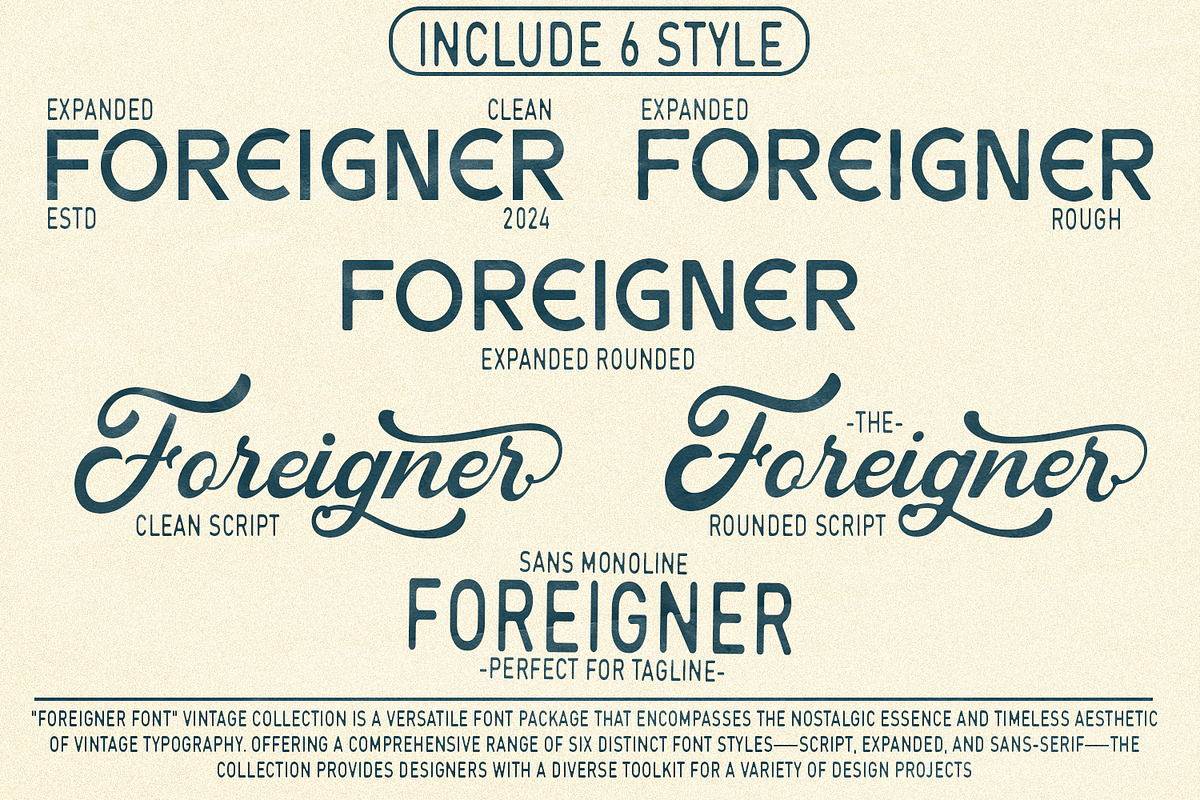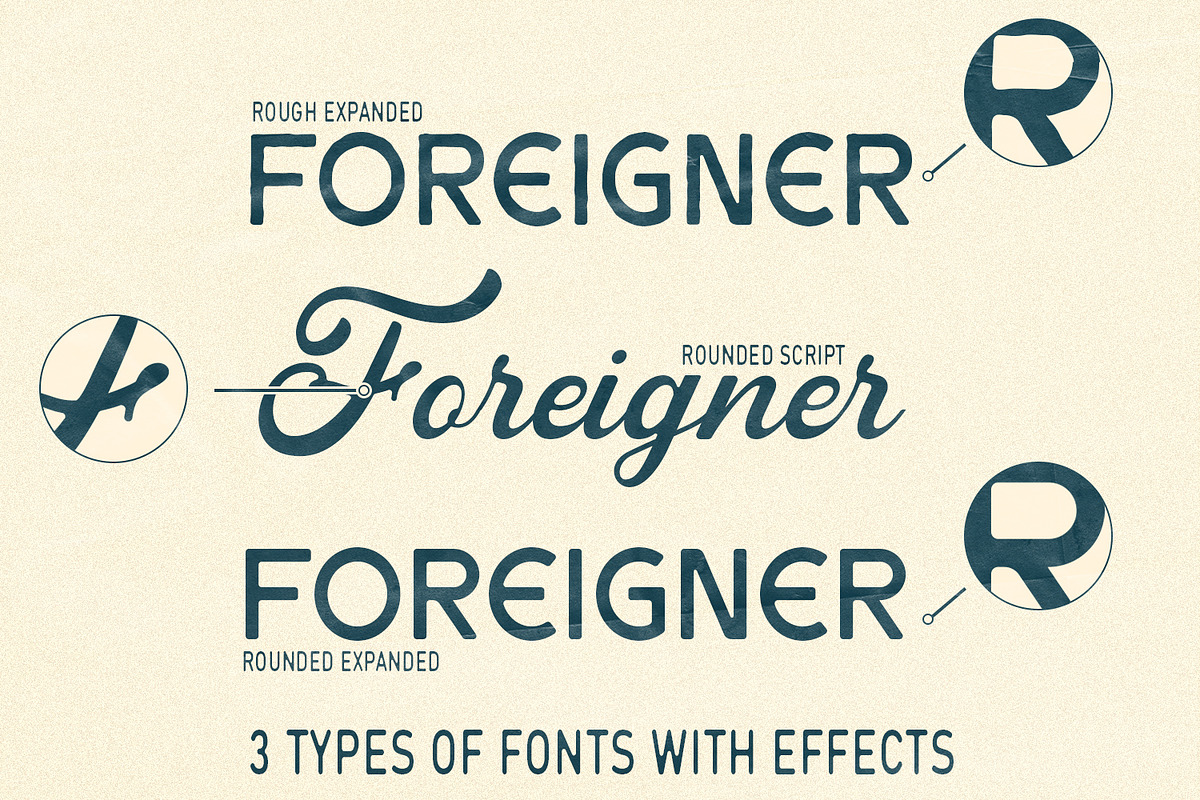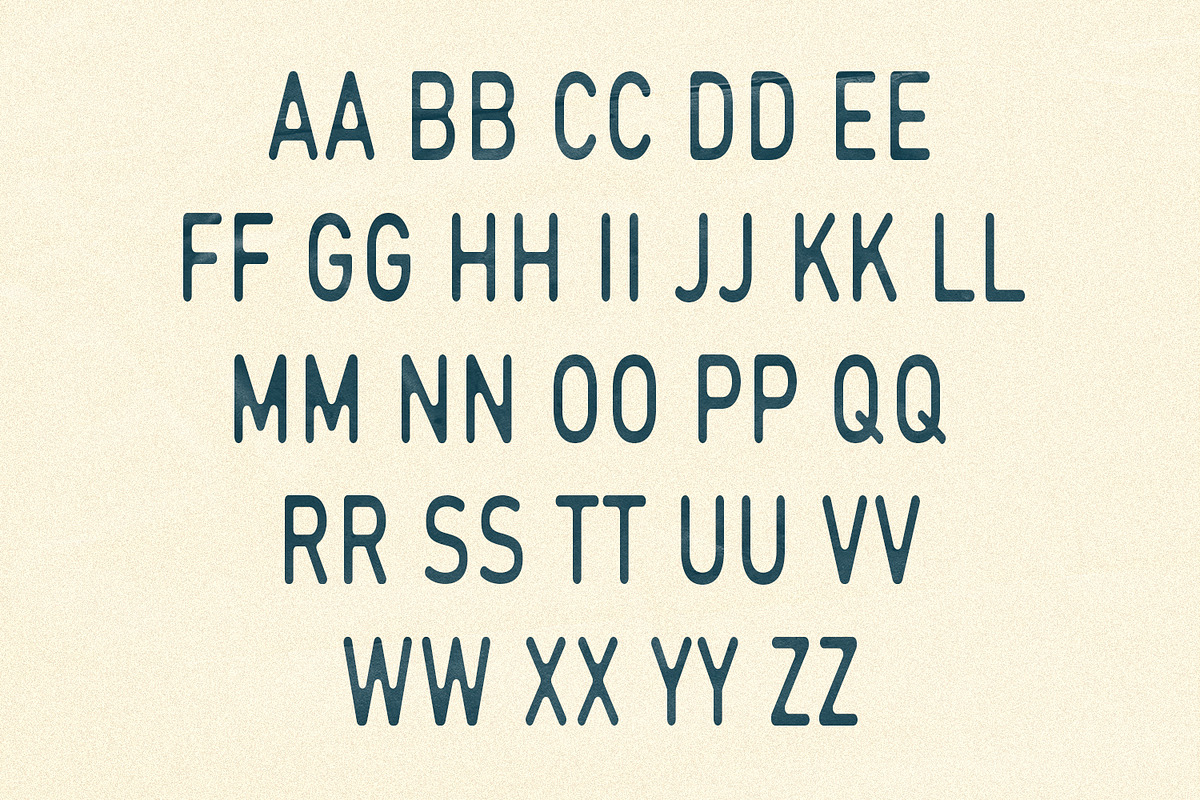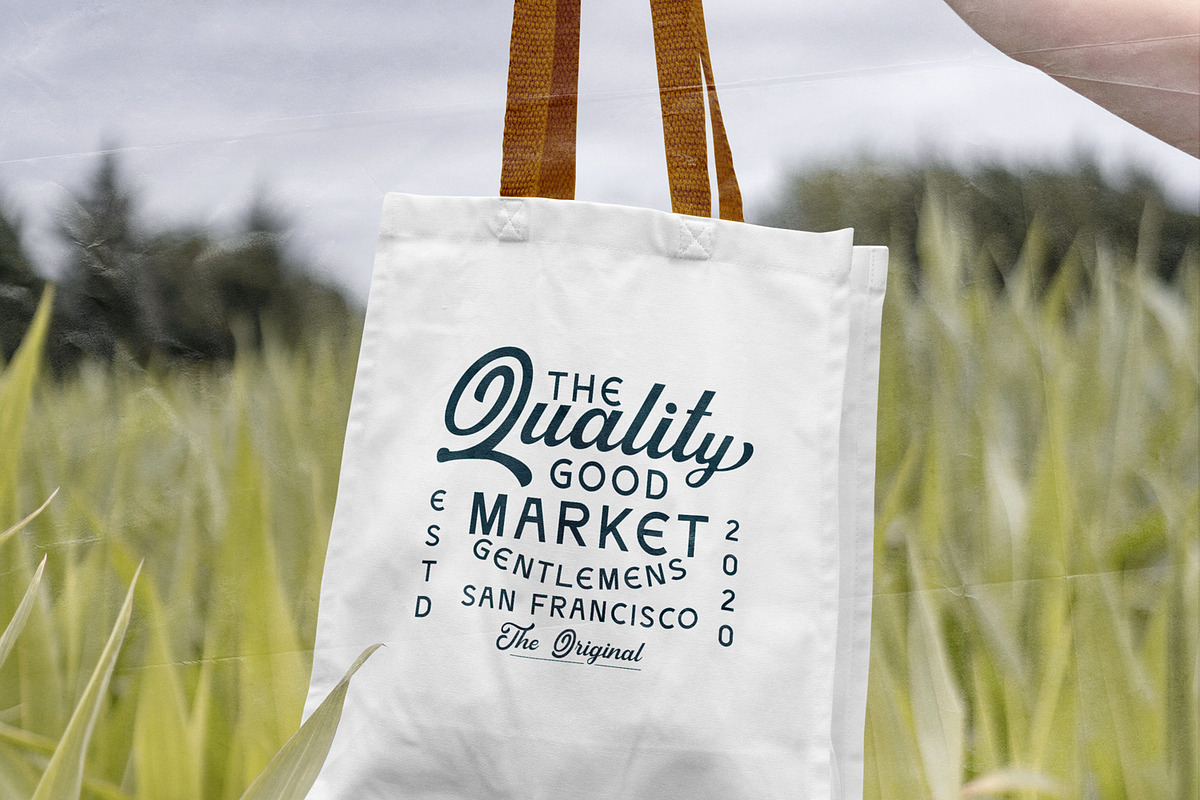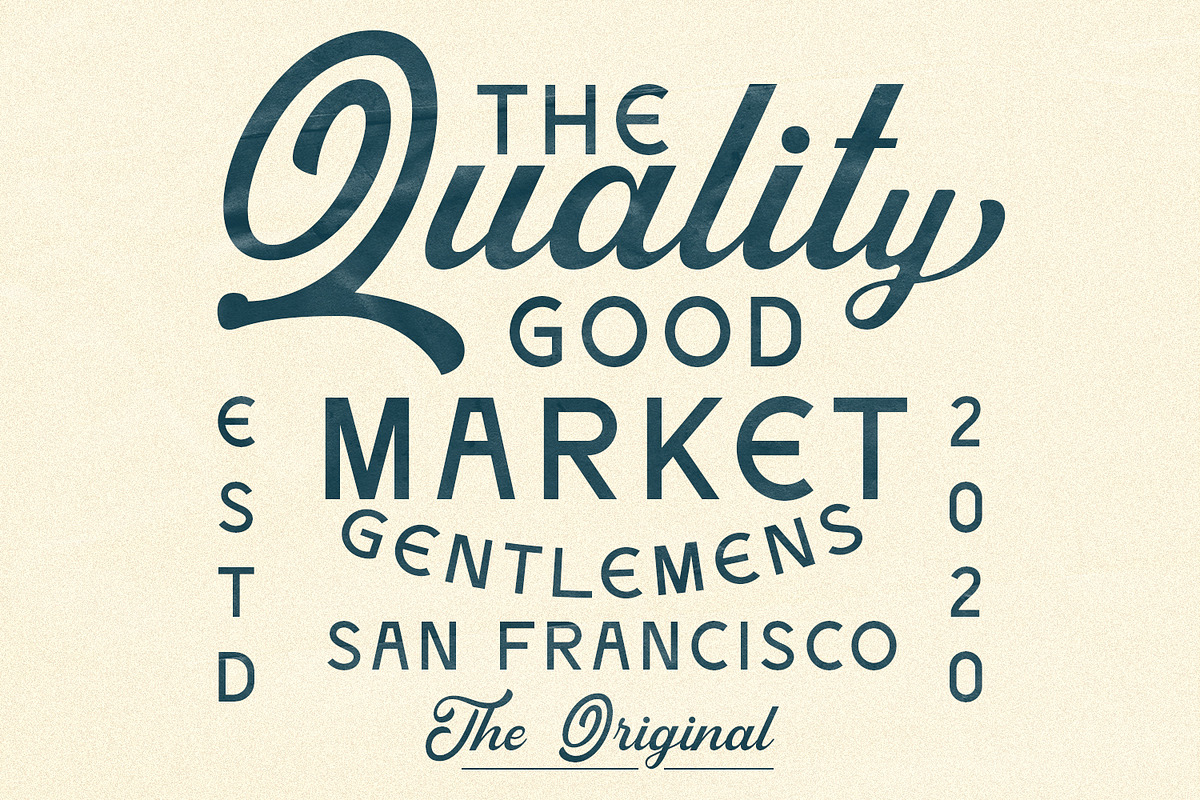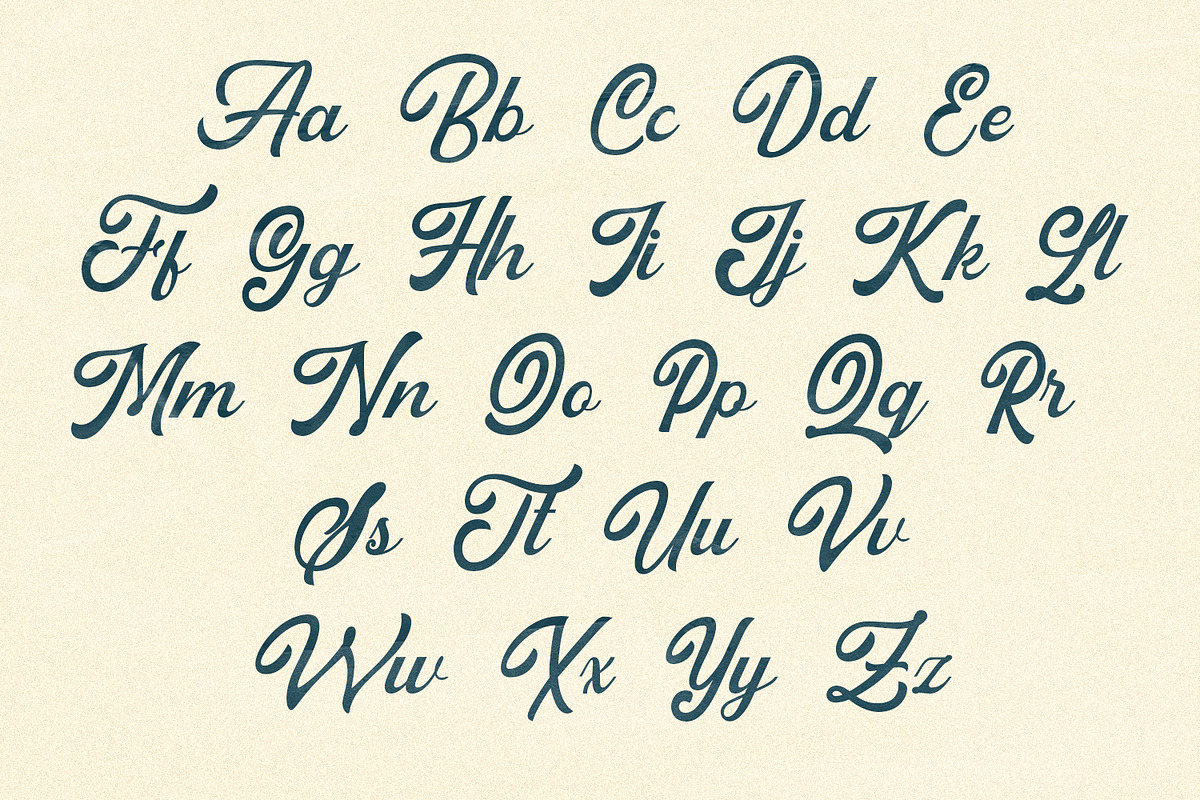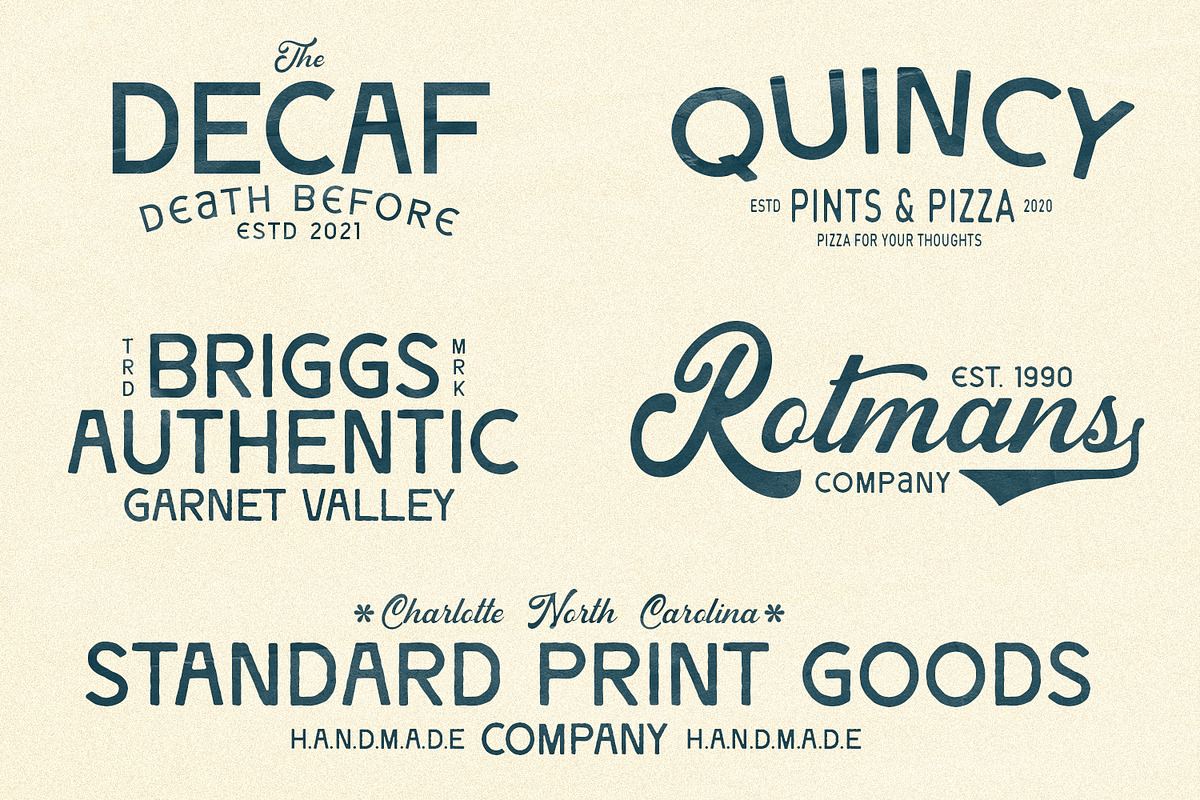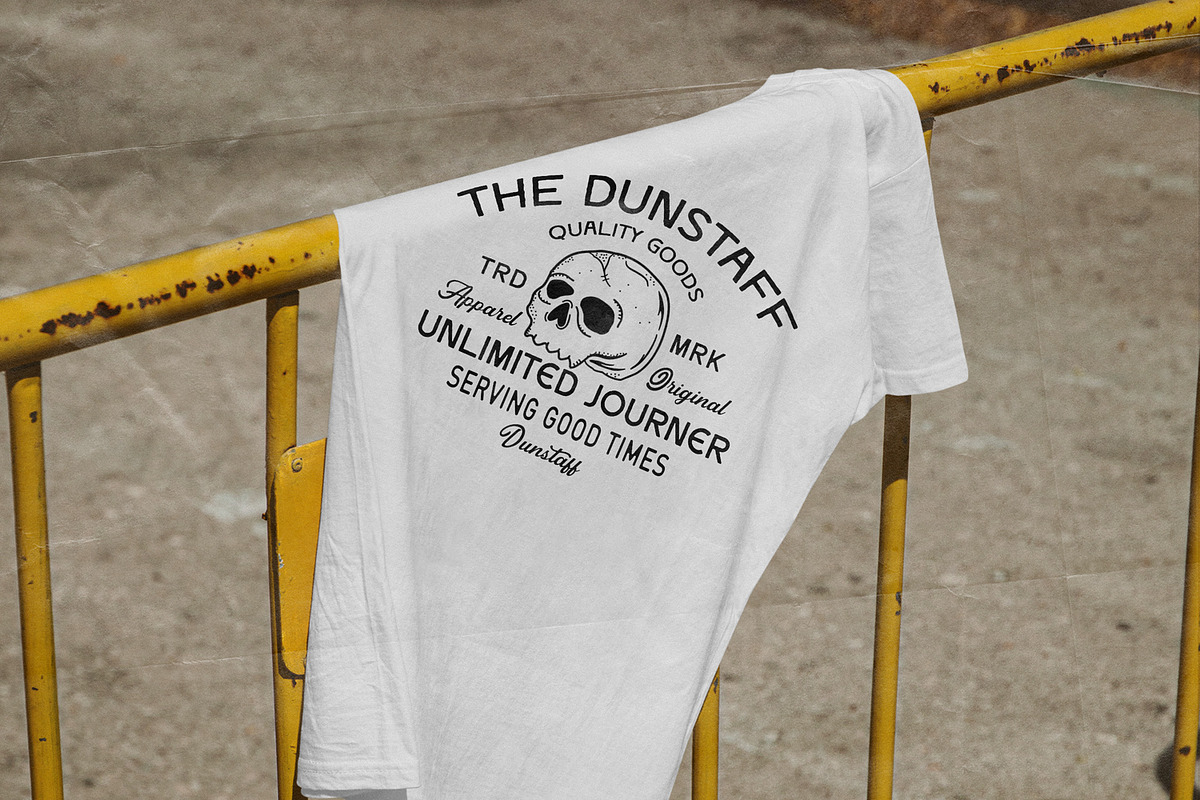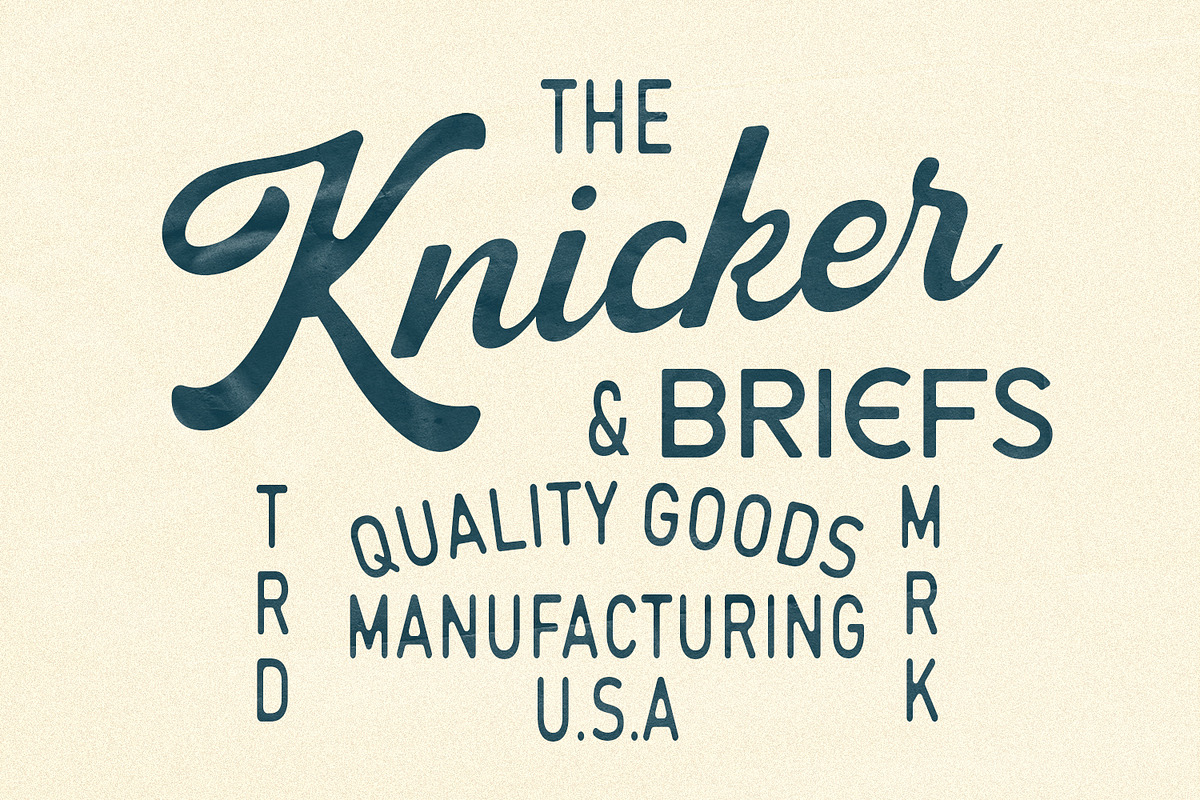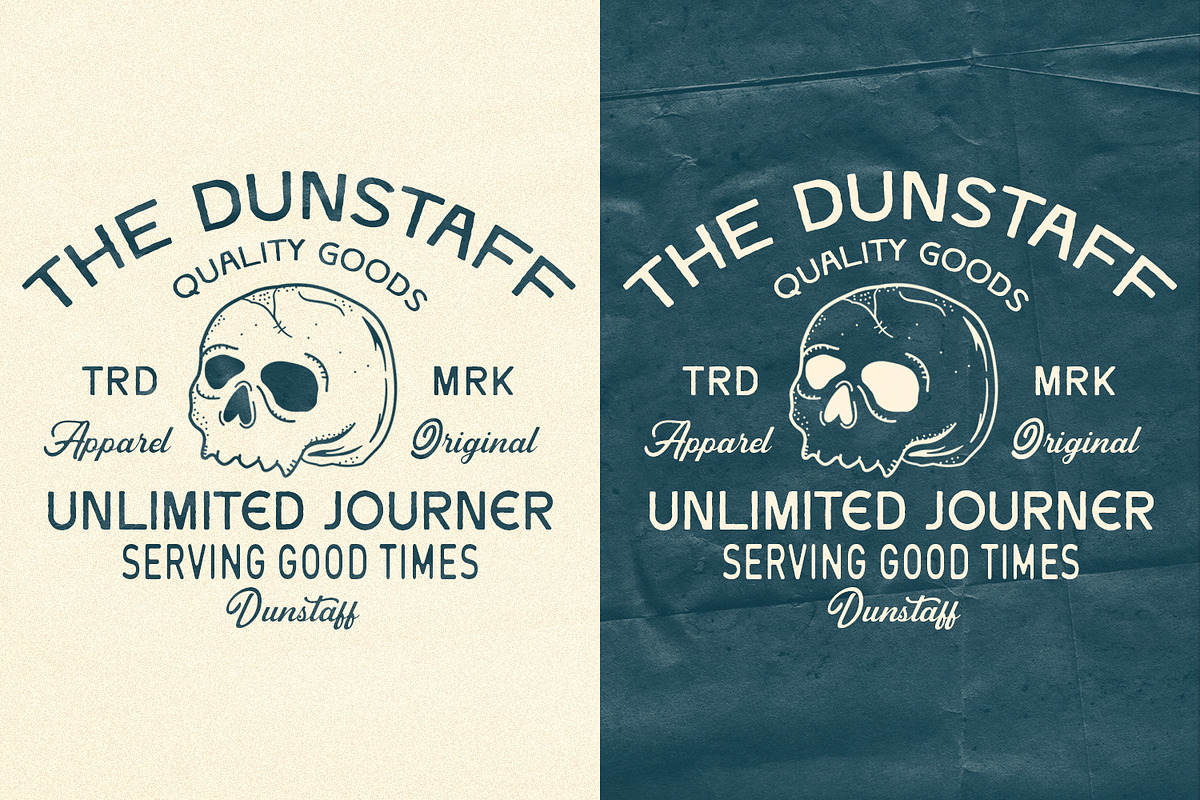
Foreigner - Vintage Font Collection
Foreigner Font Vintage Collection is a versatile font package that encompasses the nostalgic essence and timeless aesthetic of vintage typography. Offering a comprehensive range of six distinct font styles—script, condensed, and sans-serif—the collection provides designers with a diverse toolkit for a variety of design projects. Here's an explanation of its key features and benefits:
-Vintage-Inspired Design: The "Foreigner Font" collection draws inspiration from the typography of yesteryears, capturing the classic styles and intricate detailing characteristic of vintage fonts. Each style exudes a nostalgic charm that adds character and authenticity to designs.
-Six Style Variety: The collection comprises six unique font styles, catering to different design needs and preferences:
Script: Elegant and flowing, the script font style adds a touch of sophistication and handcrafted elegance to designs. Expanded: Sleek and space-saving, the condensed font style is perfect for headlines, banners, and other instances where space is limited. Sans-serif: Clean and modern, the sans-serif font style offers a contemporary twist on vintage typography, ideal for a wide range of design applications.
-Authentic Detailing: Each font style within the "Foreigner Font" collection is meticulously crafted with attention to detail, capturing the nuanced flourishes, serifs, and letterforms reminiscent of vintage typography. These authentic details imbue the fonts with a sense of nostalgia and heritage.
-Versatility: Despite their vintage-inspired design, the fonts in the "Foreigner Font" collection are versatile and adaptable to various design contexts. Whether used for branding, packaging, editorial design, or signage, these fonts add a timeless elegance to any project.
-Timeless Appeal: The vintage-inspired design of the "Foreigner Font" collection gives it a timeless appeal that transcends trends. These fonts evoke a sense of nostalgia and authenticity, making them suitable for a wide range of design projects seeking a vintage aesthetic.
-Expressive Typography: With their distinct styles and aesthetic qualities, the fonts in the "Foreigner Font" collection allow designers to create expressive typographic designs that convey mood, tone, and personality. From elegant scripts to modern sans-serifs, each font style offers unique possibilities for creative expression.
-Professional Quality: Each font style in the "Foreigner Font" collection is professionally crafted to the highest standards, ensuring excellent legibility, readability, and scalability across different media and platforms. Designers can rely on these fonts to deliver consistent and high-quality results in their projects.
In summary, the Foreigner Font Vintage Collection offers a diverse range of vintage-inspired font styles, including script, condensed, and sans-serif, each with its own unique charm and versatility. With their timeless appeal, authentic detailing, and professional quality, these fonts are an invaluable resource for designers seeking to add a touch of vintage elegance to their projects.